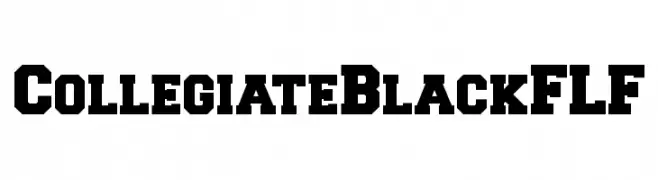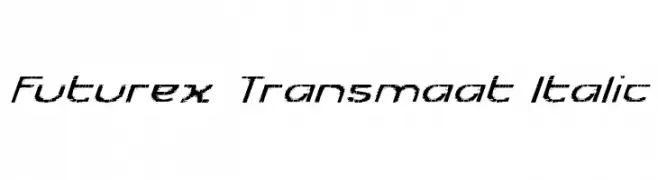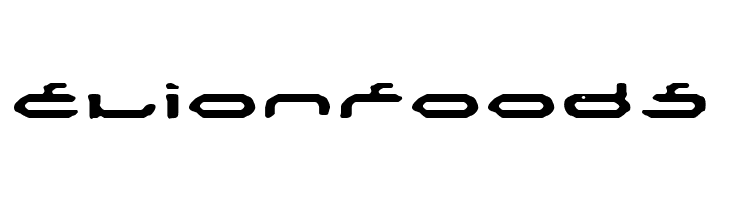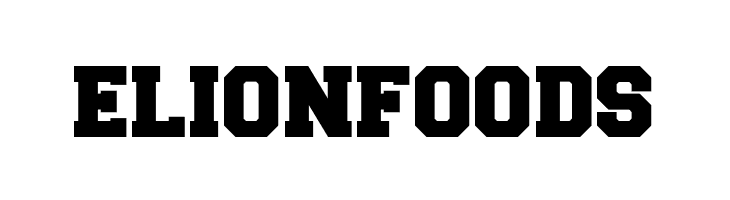
A futuristic italic font with sharp, angular lines and a distressed texture.
( Fonts by Scott Dieznyik - Kejak (formerly Cheops) )
A futuristic, mechanical font with bold, angular letterforms and geometric shapes.
A collection of detailed, illustrative characters with historical or religious themes.
( Fonts by Casady & Greene )
A bold, block-style font reminiscent of traditional collegiate lettering.
A decorative and abstract font inspired by electronic circuit diagrams.
A futuristic, geometric font with angular lines and a modern aesthetic.
A decorative and abstract collection of geometric and artistic symbols.
A decorative set of abstract, arrow-themed symbols with a modern, geometric style.